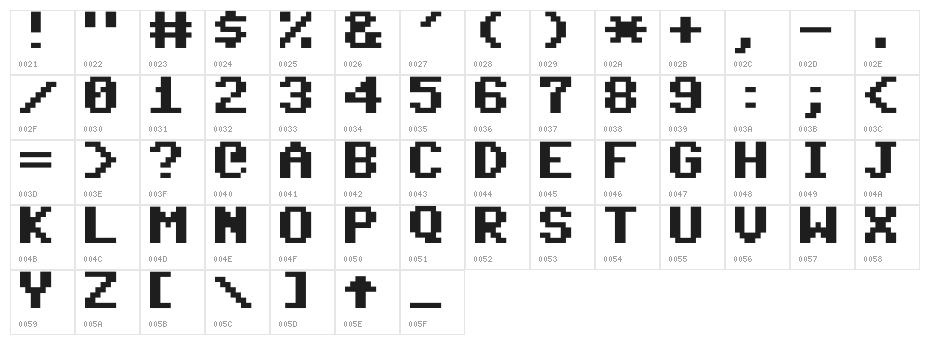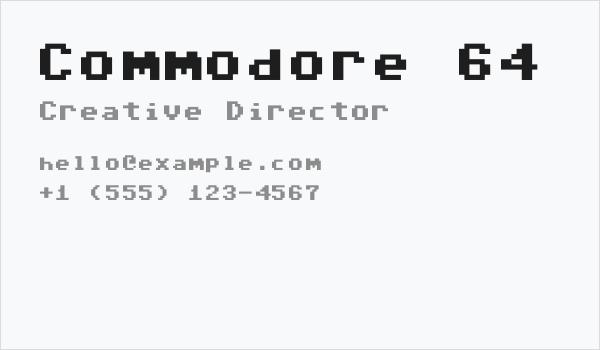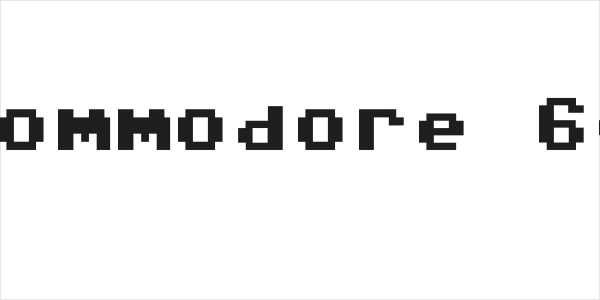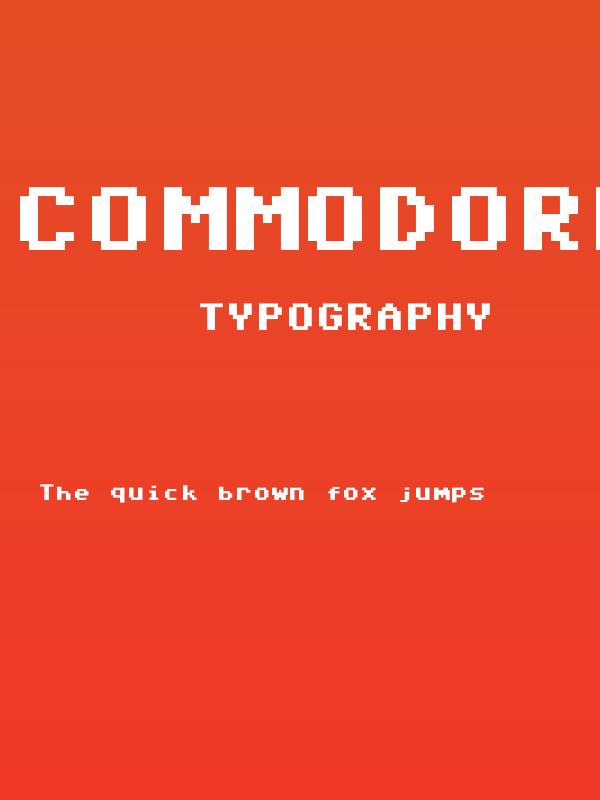
Commodore 64 Font
| श्रेणियाँ | Pixel |
| समग्र शैली | Vintage |
| उपयोग का मामला | Logos, Digital art, Retro-themed projects |
| सुझाए गए प्रोजेक्ट | Ideal for retro-themed designs, video game graphics, digital art projects, and any work that seeks to capture the essence of early computing. |